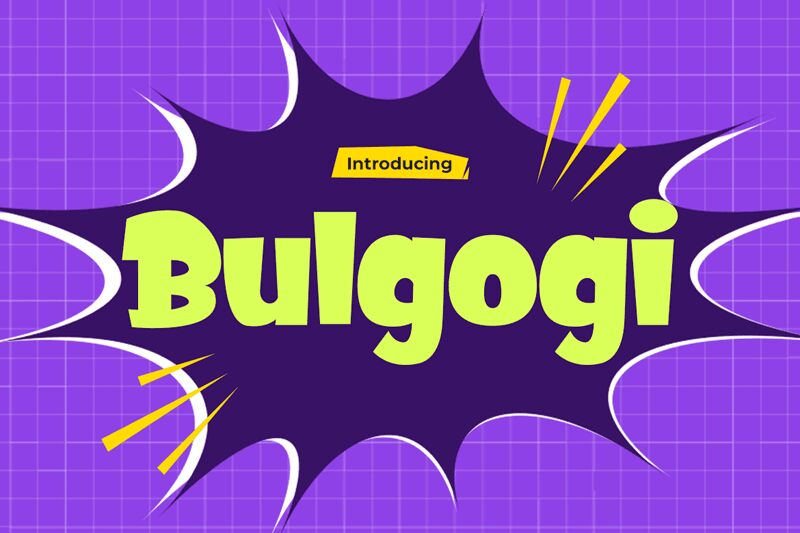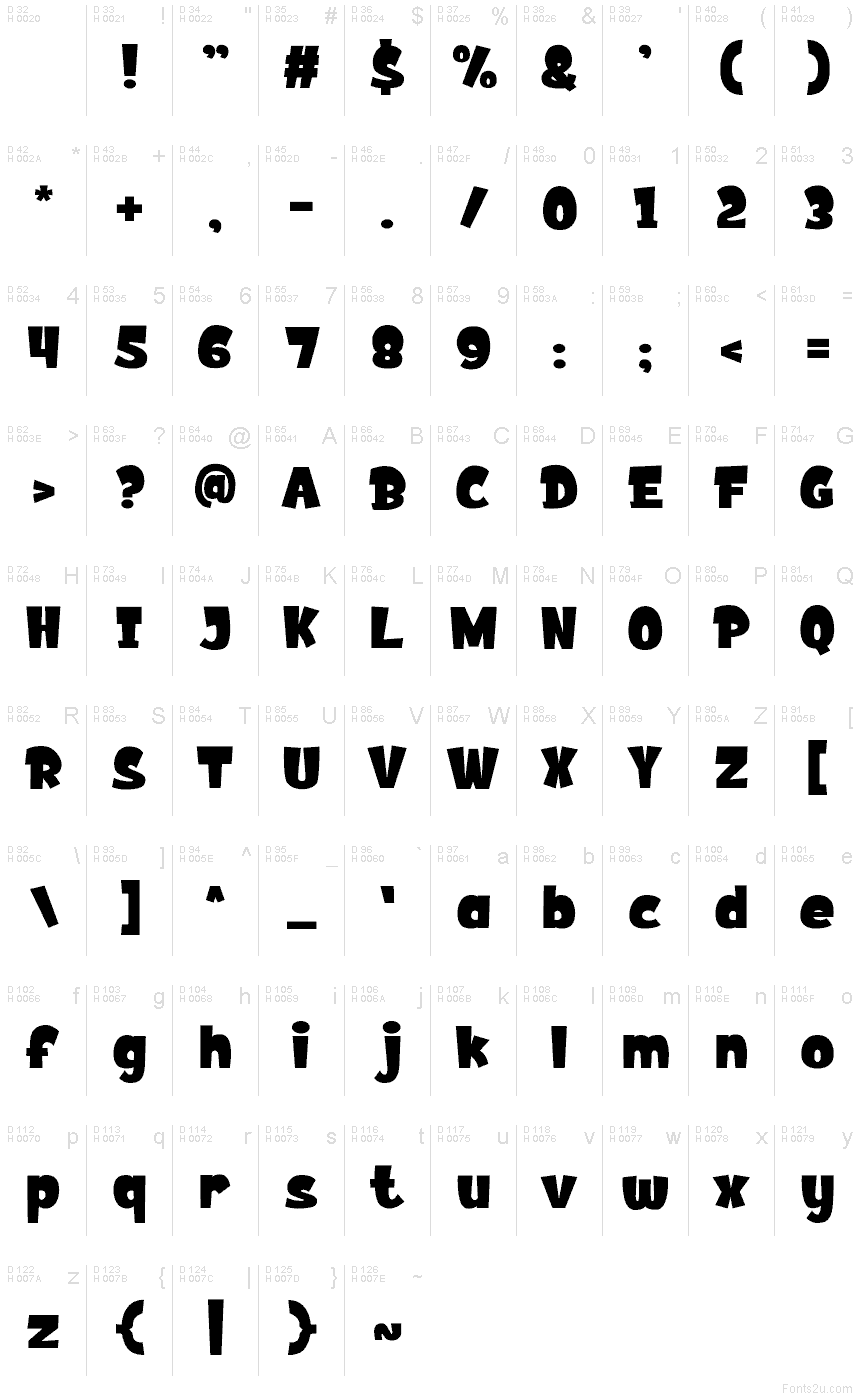
BULGOGI
Bulgogi font by Pinisiart is a free bold cartoon display font. It stands out with swollen, sauce-thick strokes and a bouncy rhythm that nudges letters slightly off-kilter, giving every word a friendly shove. Edges feel hand-cut and buttery rather than vector-clean, so headlines land with a chewy, high-contrast punch that reads loud yet playful.
Using Bulgogi, your titles snap on food truck branding, snack packaging, kids’ menus, party invites, festival posters, and comic headers. This free font thrives big and close, where its chunky counters and jaunty weight can breathe; add a touch of extra tracking at smaller sizes. For body copy, pair it with a rounded, no-nonsense sans to keep the energy focused.